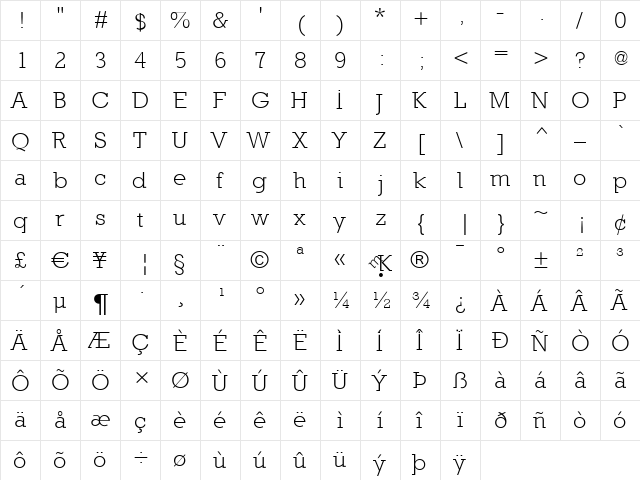
Nilland Regular Font Preview
Nilland Regular
Design Context for Nilland Typeface
Nilland takes a measured approach to typography — its balanced proportions and neutral character make it a reliable workhorse for both digital and print work.